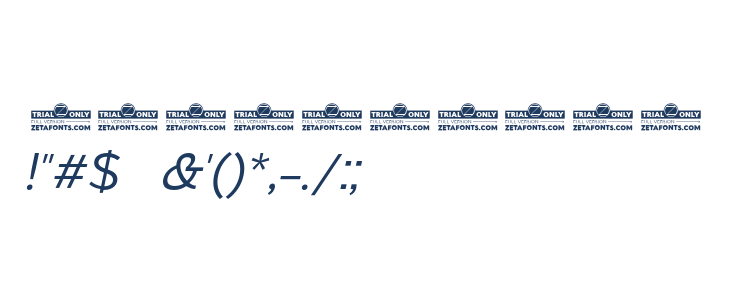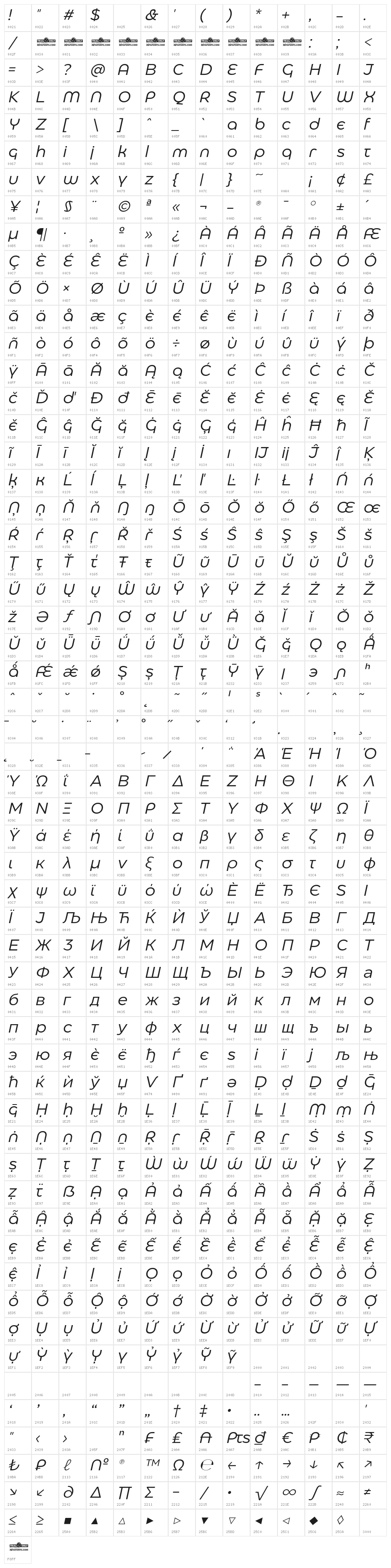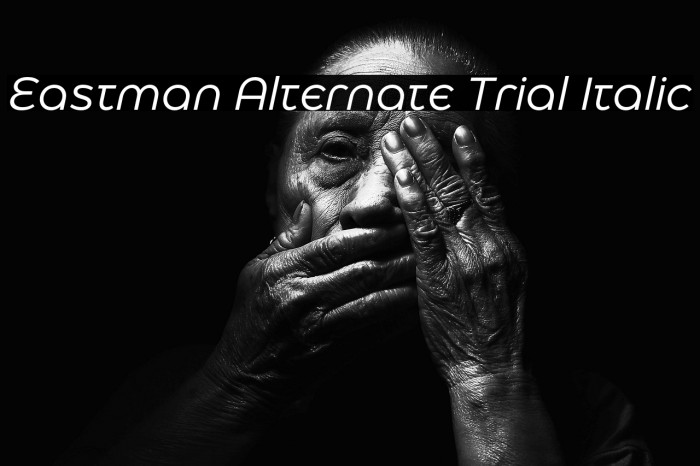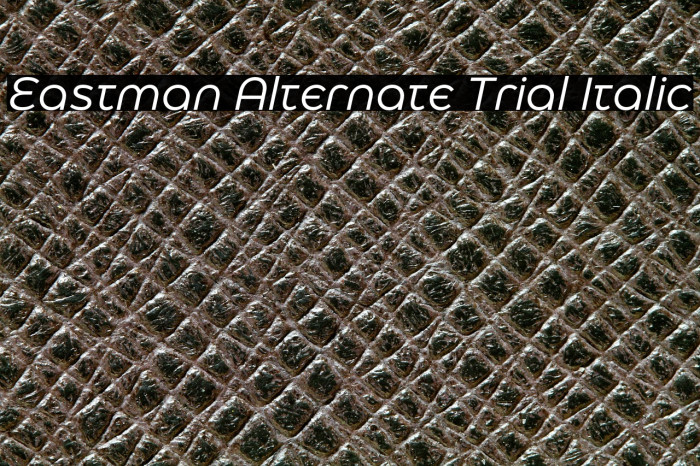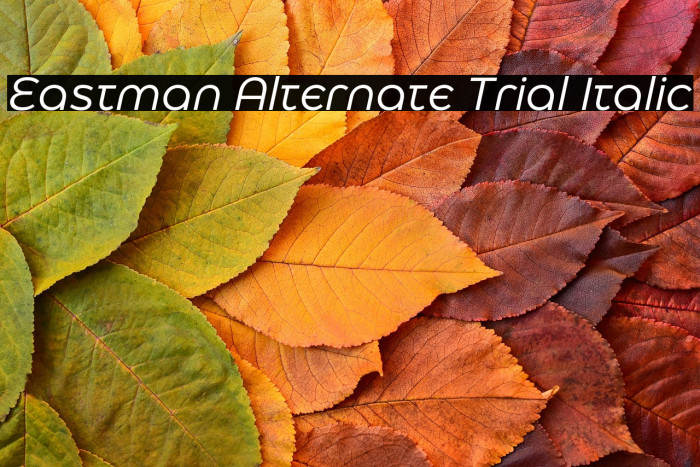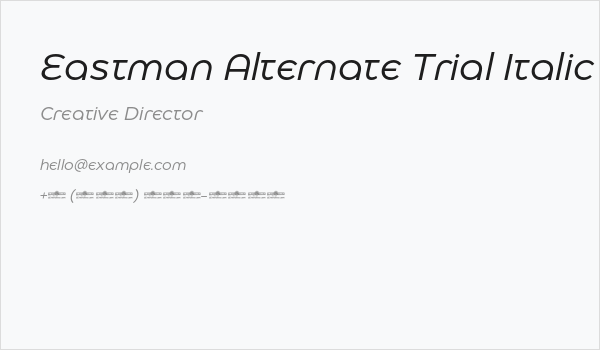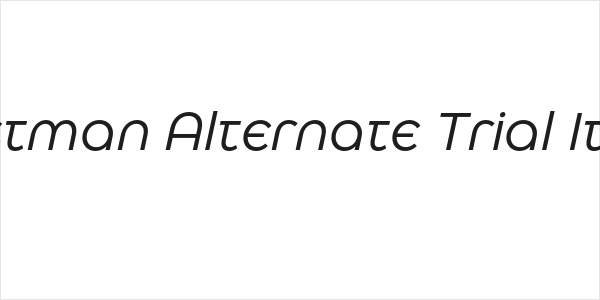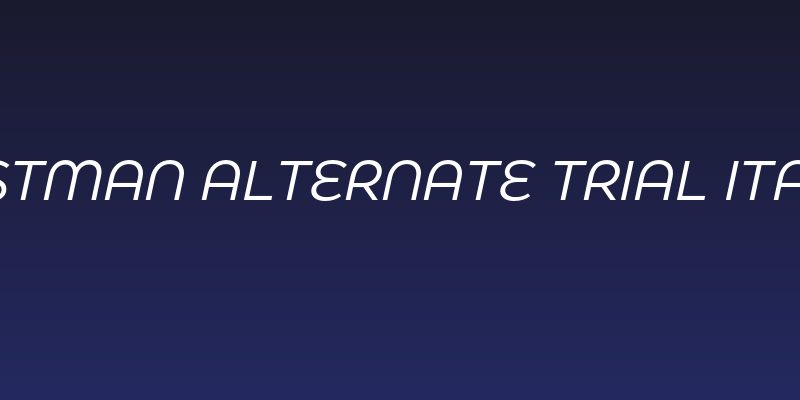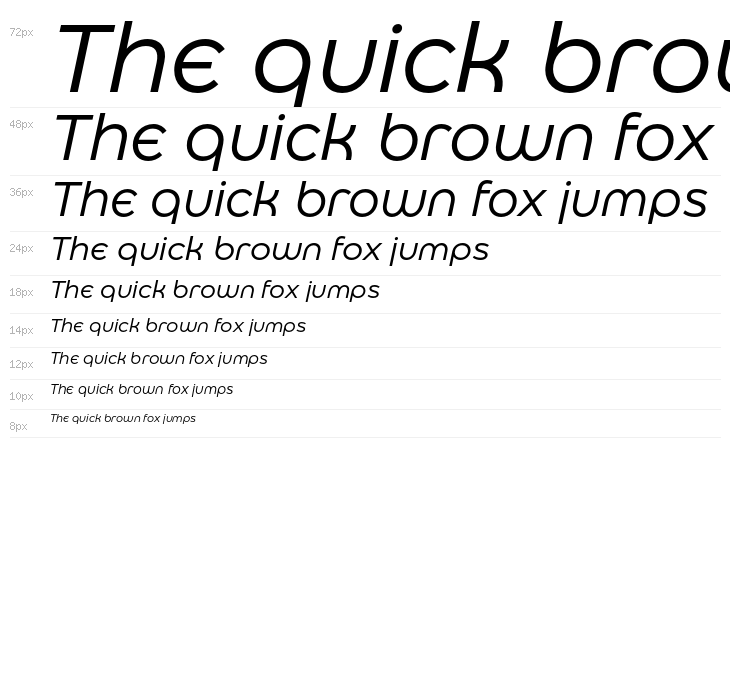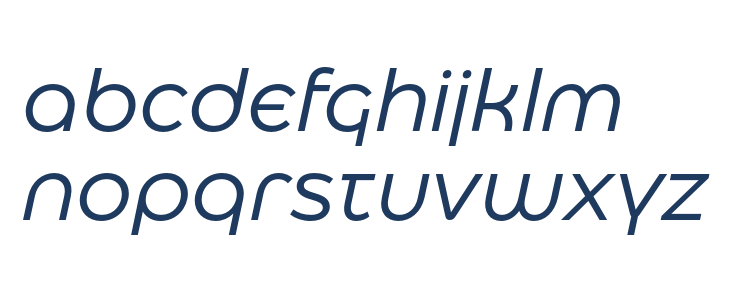
Eastman Alternate Trial Italic Font
Eastman Alternate Trial Italic Description
This font features a sleek, modern design with a slight italic slant, giving it a dynamic and forward-moving appearance. The characters are clean and well-defined, with a consistent stroke width that maintains readability across different sizes. The uppercase and lowercase letters are harmoniously balanced, while the numerals and special characters complement the overall aesthetic. The font's style is versatile, making it suitable for a variety of design projects that require a contemporary and professional look.